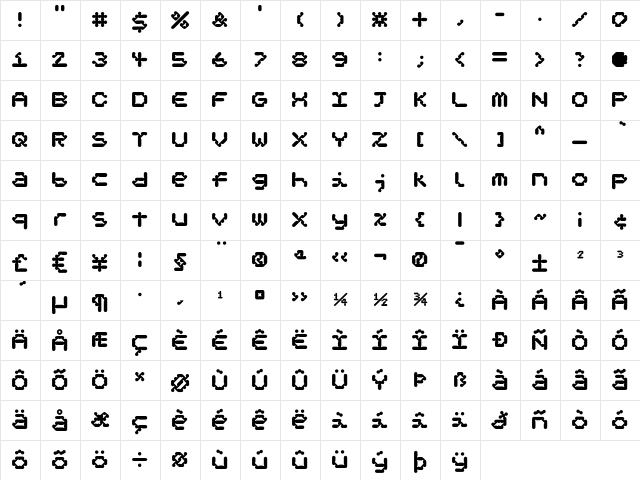
Complete Koko Five glyph index. Displaying only characters natively supported by Koko Five font.
Koko is a composed and adaptable typeface that performs quietly and consistently across a wide range of design contexts.